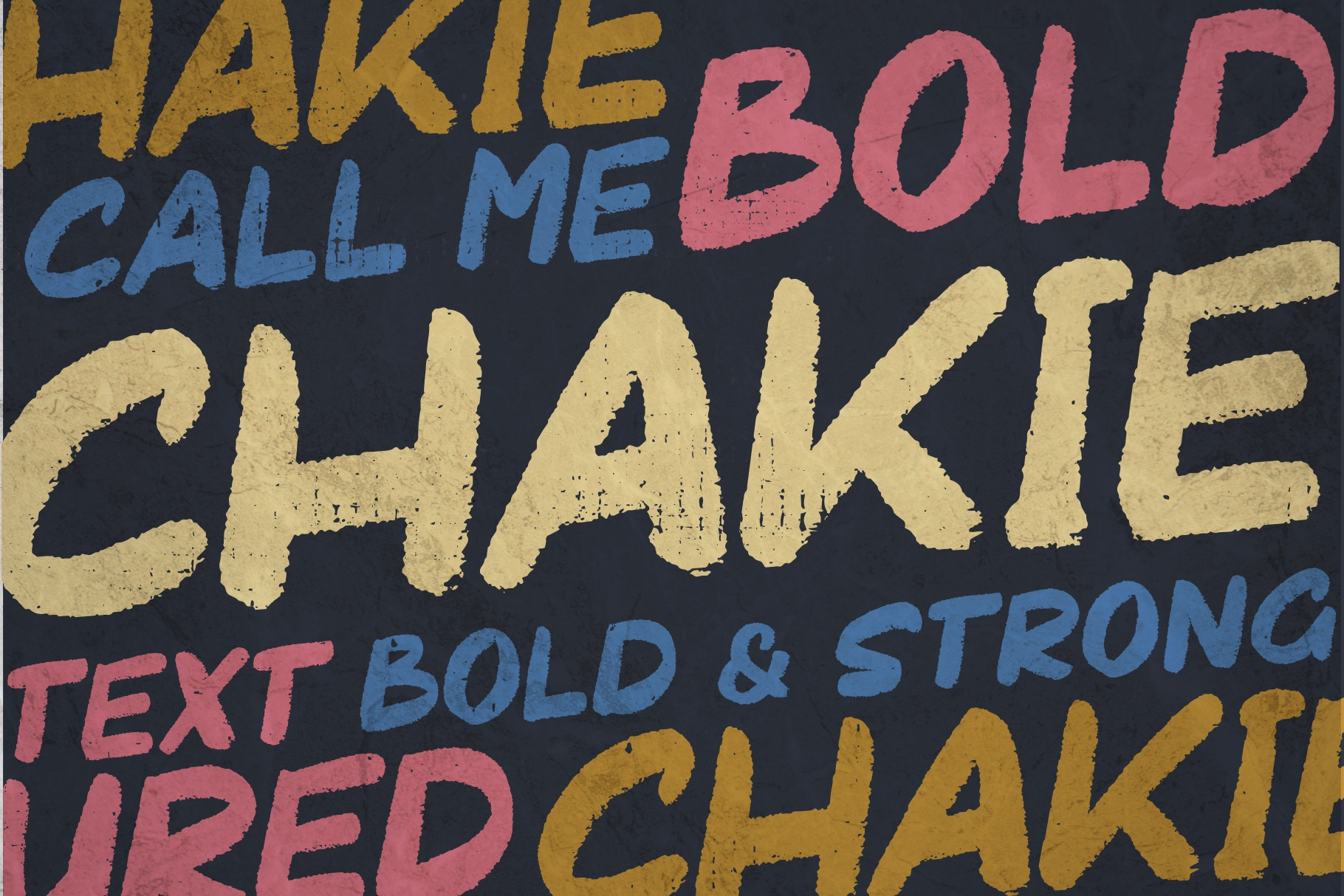
CHAKIE - Retro Brush Font
Just call me CHAKIE, i'm born from old natural brush chalk years '60-'70, the brush make me very bold and strong for your great work and design! You can use me for poster, t-shirt design, branding, packaging, label, typography design, and many more you want. Bring back me to the '60 brother! :D